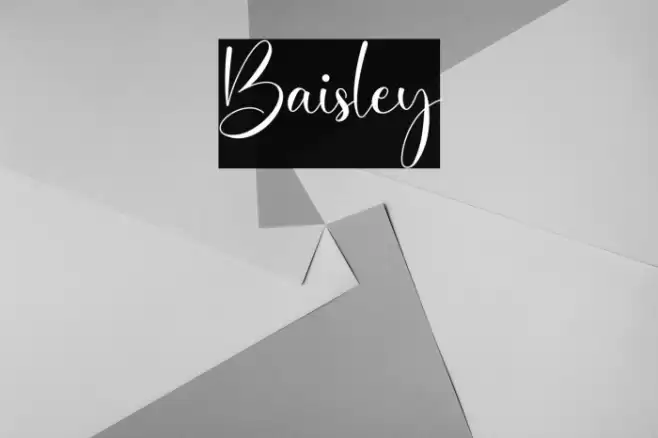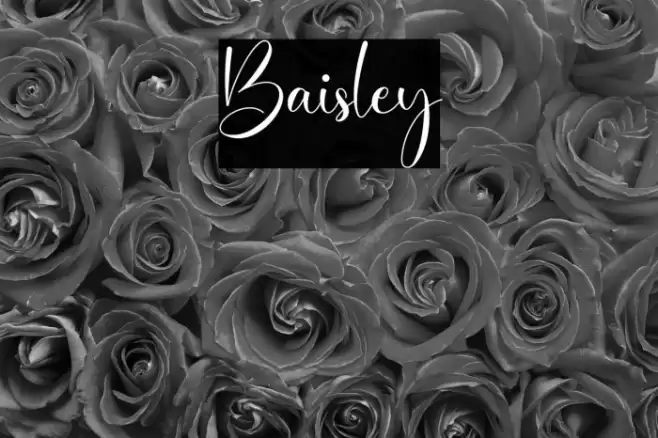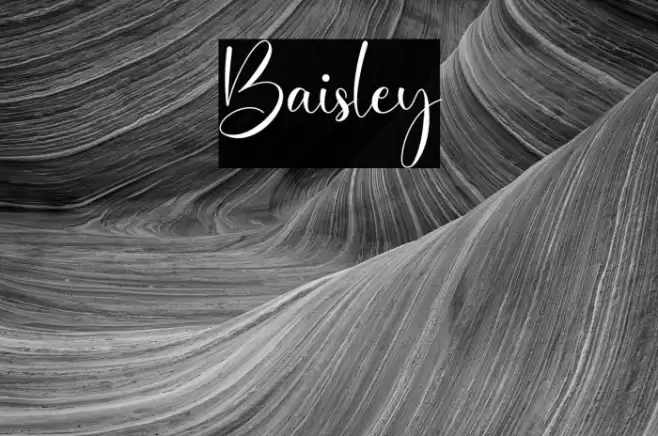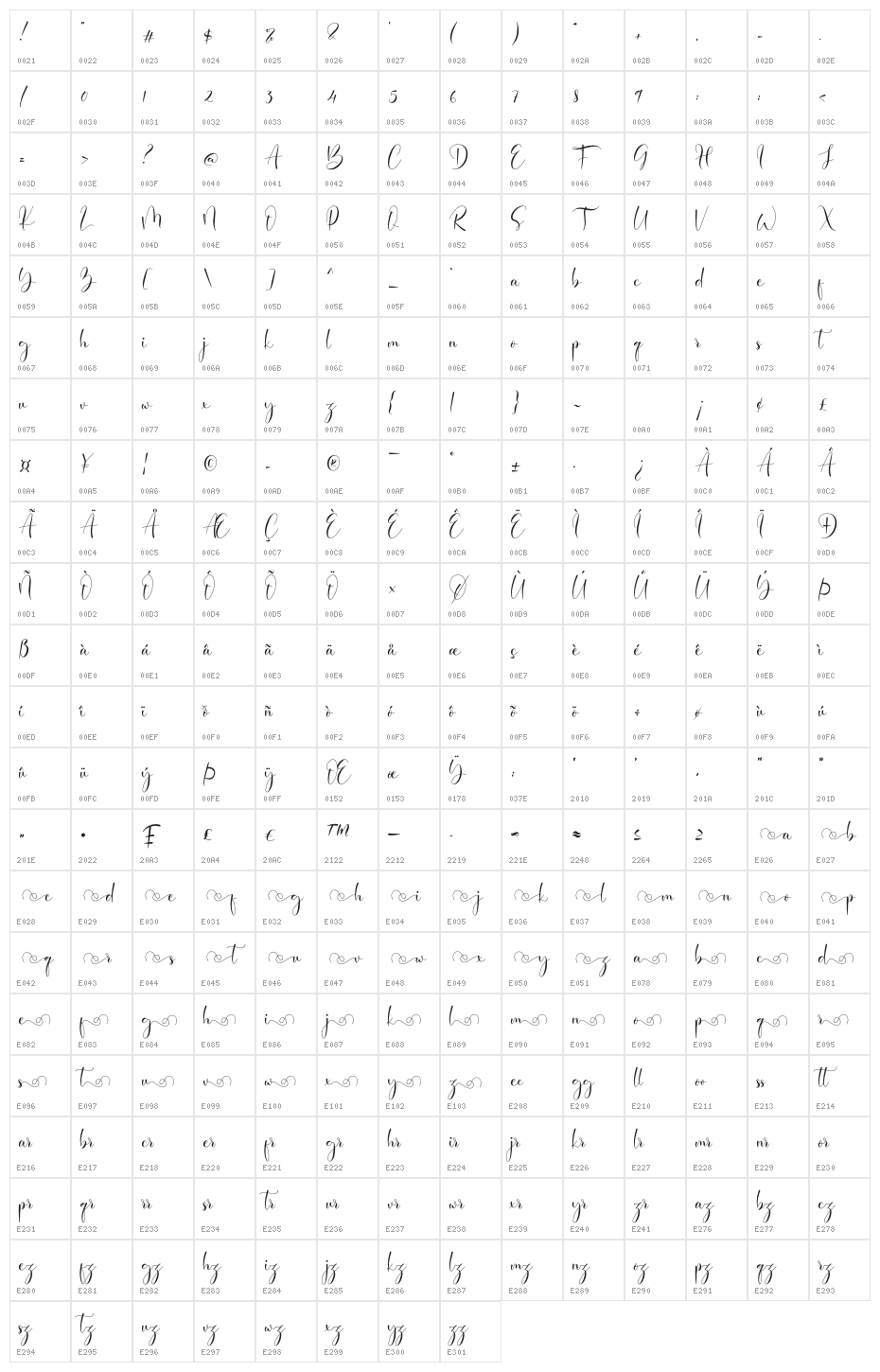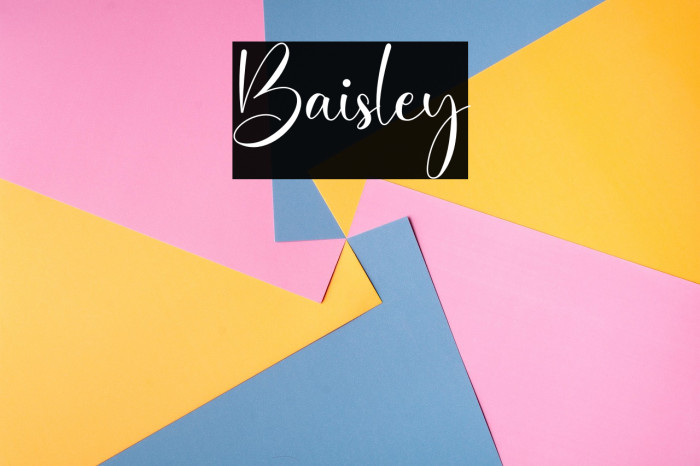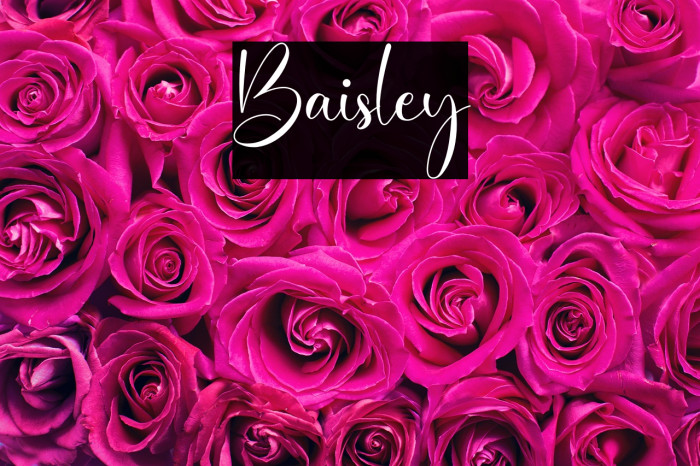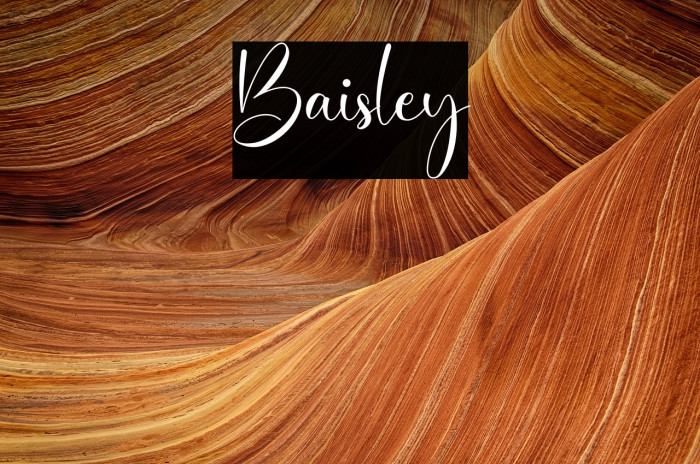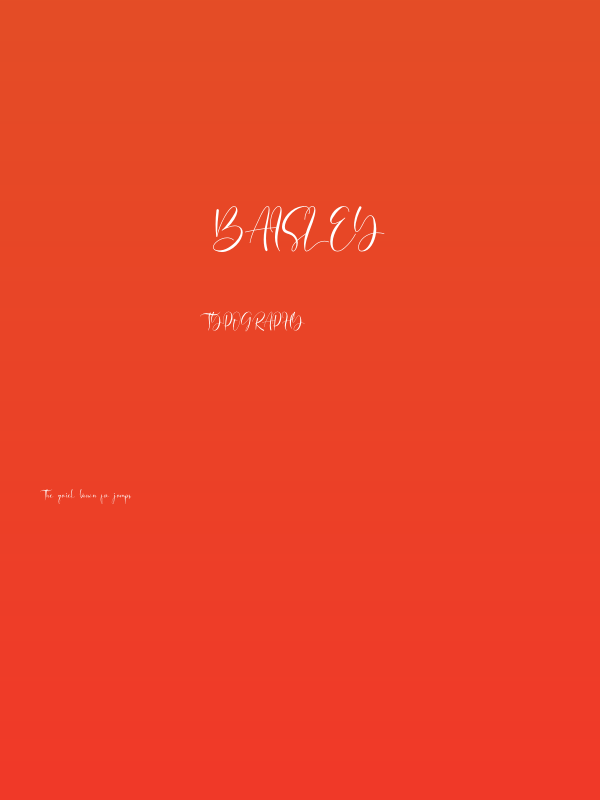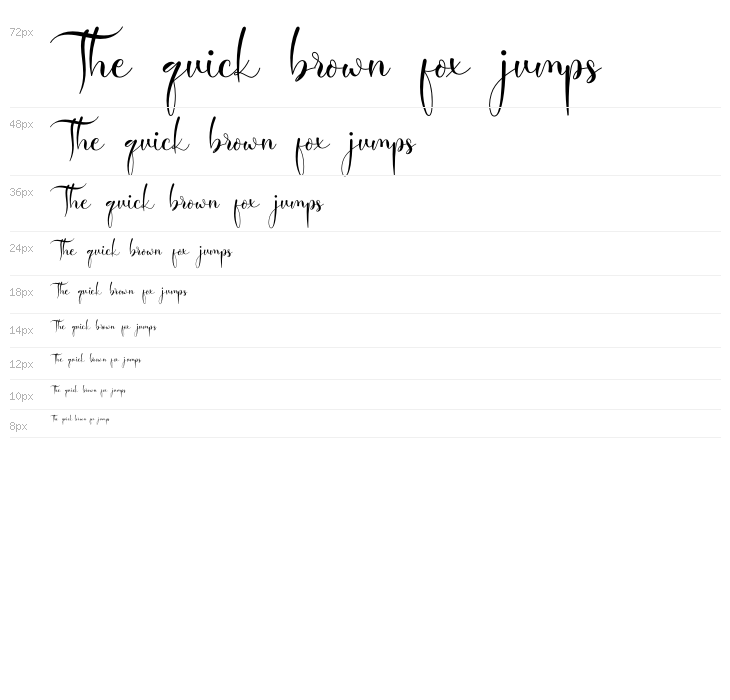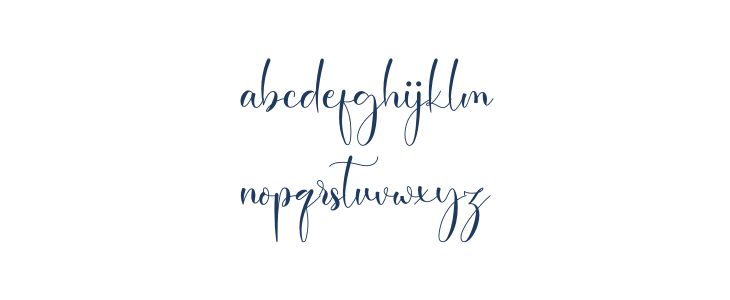
Baisley Font
Baisley Description
This font exudes a graceful and elegant handwritten style, characterized by its flowing and interconnected letterforms. The uppercase letters are bold and expressive, with sweeping curves and flourishes that add a sense of movement and sophistication. The lowercase letters maintain a consistent fluidity, with delicate loops and a slightly slanted orientation that enhances its cursive appeal. The numerals are stylish and complement the overall aesthetic, while the special characters are thoughtfully designed to match the font's elegant theme. This font is perfect for projects that require a touch of elegance and personal flair.
A graceful and elegant handwritten script with flowing, interconnected letterforms from Uncategorized fonts.
- Proposed Projects: Ideal for wedding invitations, greeting cards, branding, and elegant logo designs.
- Overall Style: Elegant
- Use Case: Logos, Invitations, Branding